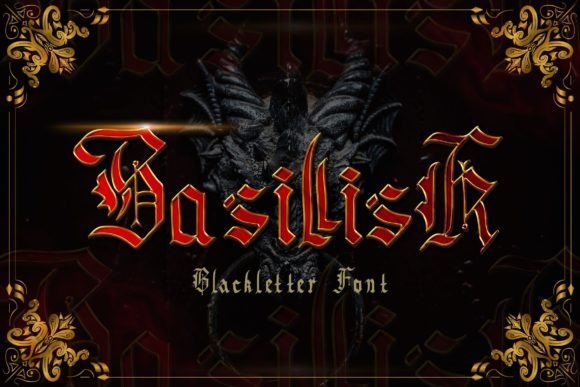
Introduction to Basillisk Font
Basillisk is a splendid blackletter font that will impress with its stylish features.
Use it for product packaging, branding, or other projects that need bold and daring typography .
Key Features of Basillisk Font
Why Choose Basillisk Font?
Basillisk Font offers exceptional quality and versatility, making it a valuable addition to your design toolkit. Whether you’re creating for personal projects or commercial use, Basillisk Font delivers professional results.